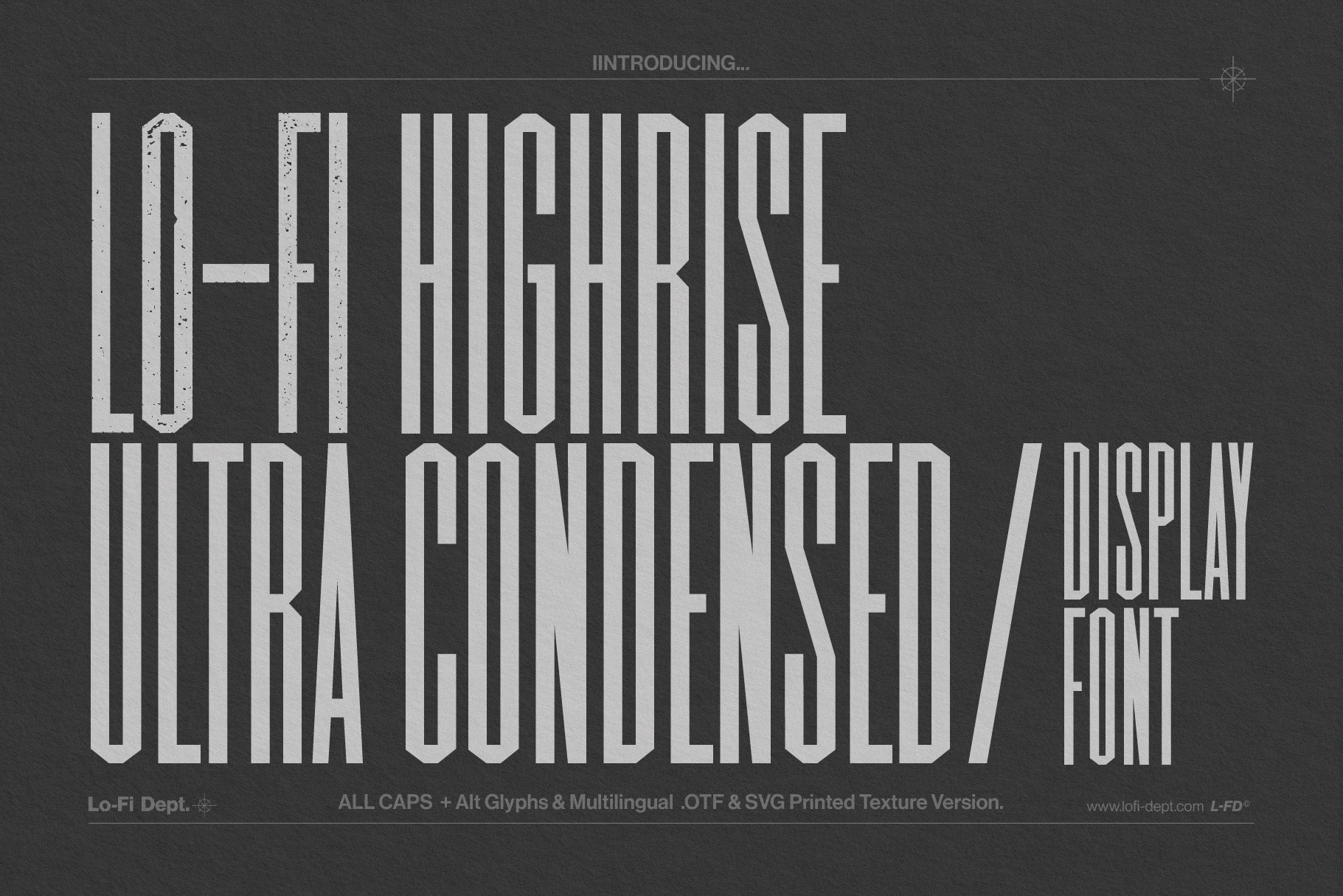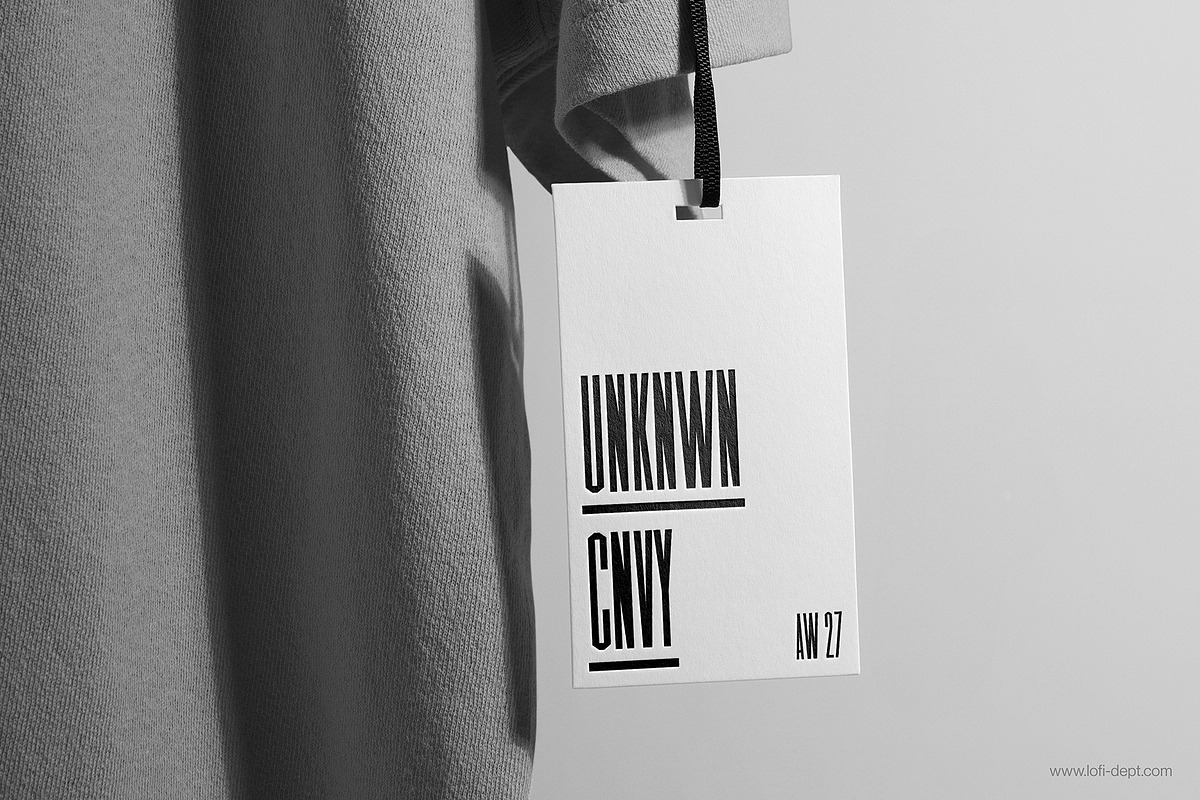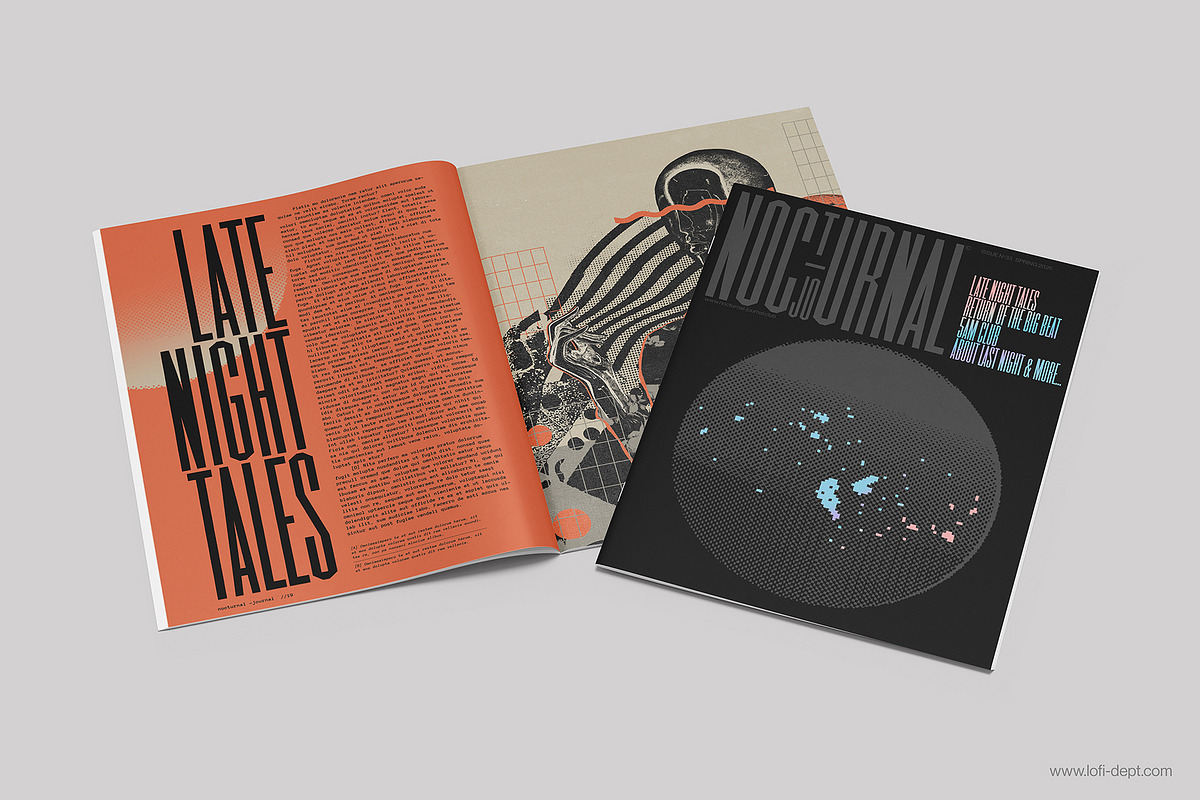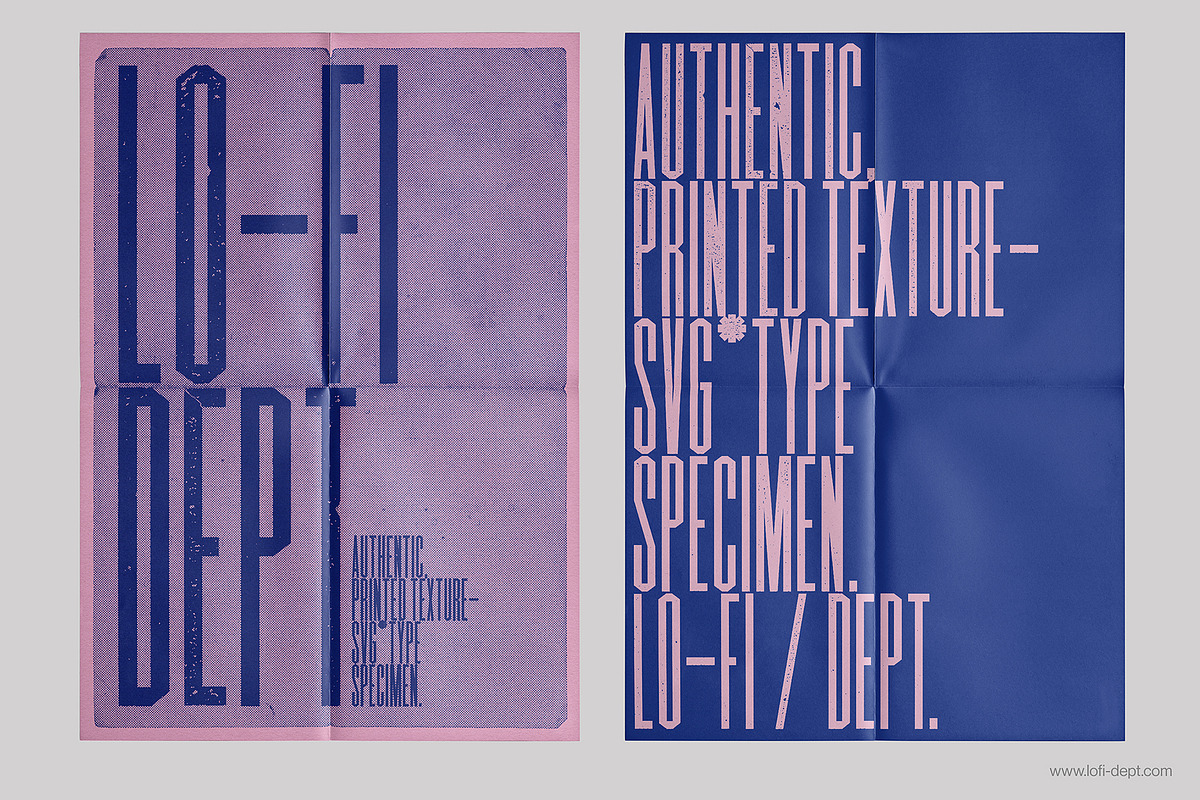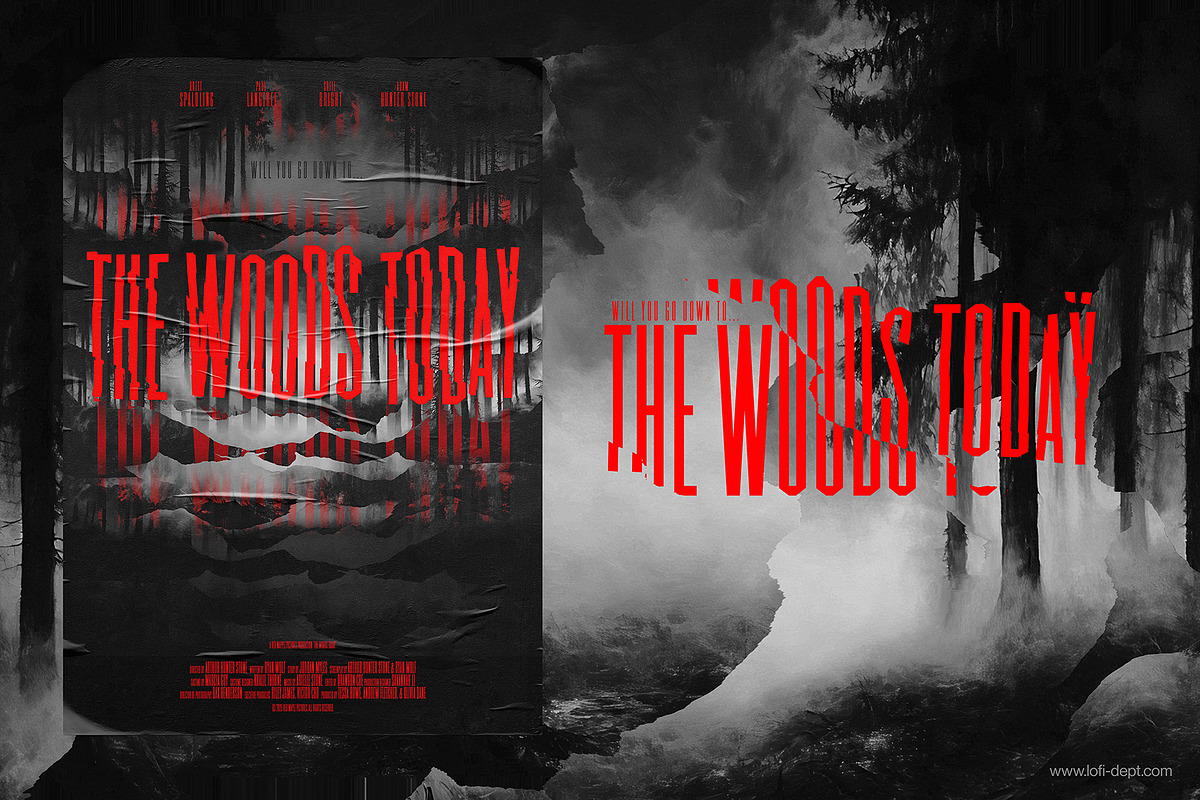
Lo-Fi HIGHRISE Display Font
Lo-Fi HIGHRISE by the Lo-Fi Dept offers an ultra-condensed display typeface imbued with the bold charm of vintage wood type. This font draws inspiration from the geometric forms of antique letterpress designs, skillfully merging analog grit with digital precision to deliver a modern aesthetic embedded in a nostalgic context. Ideal for posters, headlines, mastheads, and branding, its sharp verticality and structured forms ensure a striking visual impact in tight spaces.
Features All Caps for bold statements Alternative glyphs for creative versatility Multilingual character support